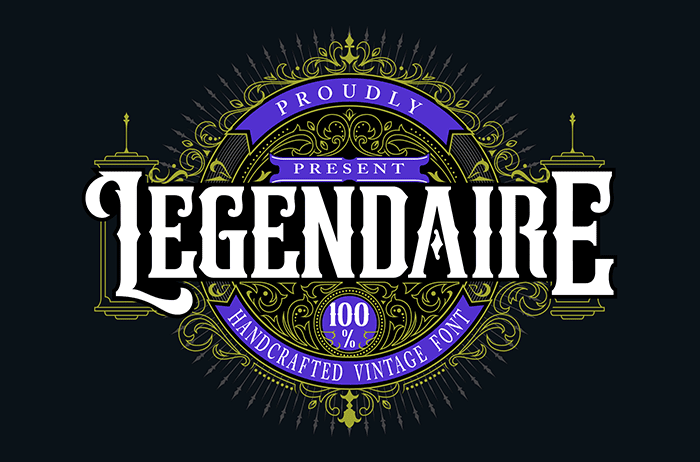
Legendarie Vintage Font
Legendarie is a sophisticated vintage font that features luxurious letters. Ignite your creativity with this must-have font. Thanks to Vunira Studio for sharing this font! Take a look at this portfolio for more of his stunning fonts.